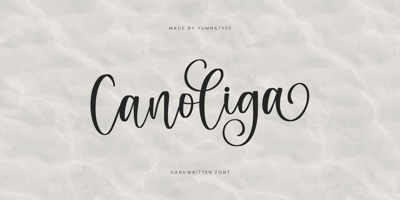
Canoliga
Canoliga font
Canoliga Font Family was designed by Donis Miftahudin and published by Yumna Type. Canoliga contains 1 styles and family package options. Canoliga is a graceful handwritten font that exudes elegance and fluidity. Each letter seamlessly connects to the next, creating a smooth flow of text that mimics the natural rhythm of handwriting. Crafted with a thin weight and carefully balanced contrast, Canoliga strikes the perfect balance between legibility and style.Despite its thin weight, Canoliga is made in enough contrast in the letters to ensure readability, making it easy on the eyes while retaining its delicate appearance. The gentle curves and flowing lines of the connected letters add a sense of sophistication and charm to your text. In addition, enjoy the features here.Features: Ligatures Stylistic Sets Multilingual Supports PUA Encoded Numerals and Punctuations Canoliga fits in headlines, logos, posters, flyers, invitations, branding materials, greeting cards, print media, editorial layouts, and many more designs. Find out more ways to use this font by taking a look at the font preview.Thanks for purchasing our fonts. Hopefully, you have a great time using our font. Feel free to contact us anytime for further information or when you have trouble with the font. Thanks a lot and happy designing.